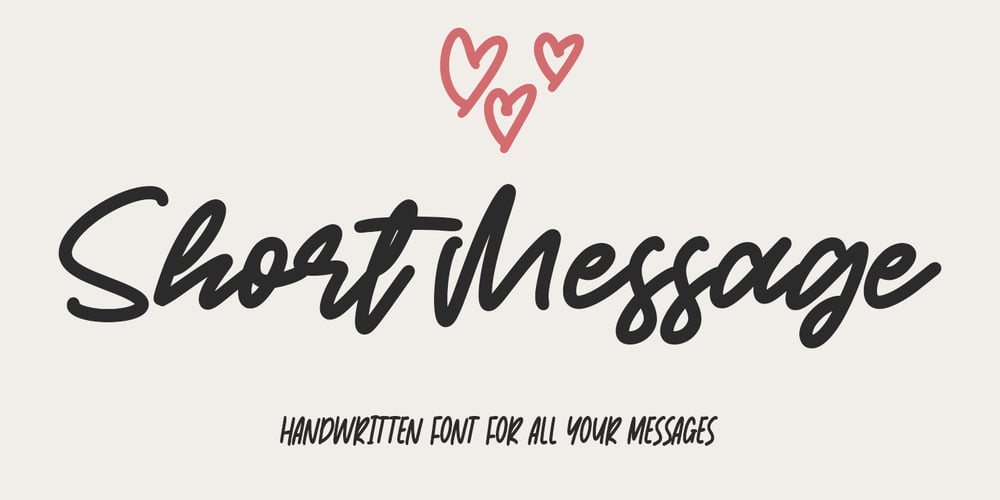
Short Message Font Family was designed by Asep Rendi and published by Arendxstudio. Short Message contains 3 styles and family package options. Short Message is a 3 font combination that is suitable for all your design projects that aim to convey your message to your loved ones, with the font packages offered will definitely satisfy youShort Message came with opentype features such stylist ligatures good for logotype, poster, badge, book cover, tshirt design, packaging and any more.